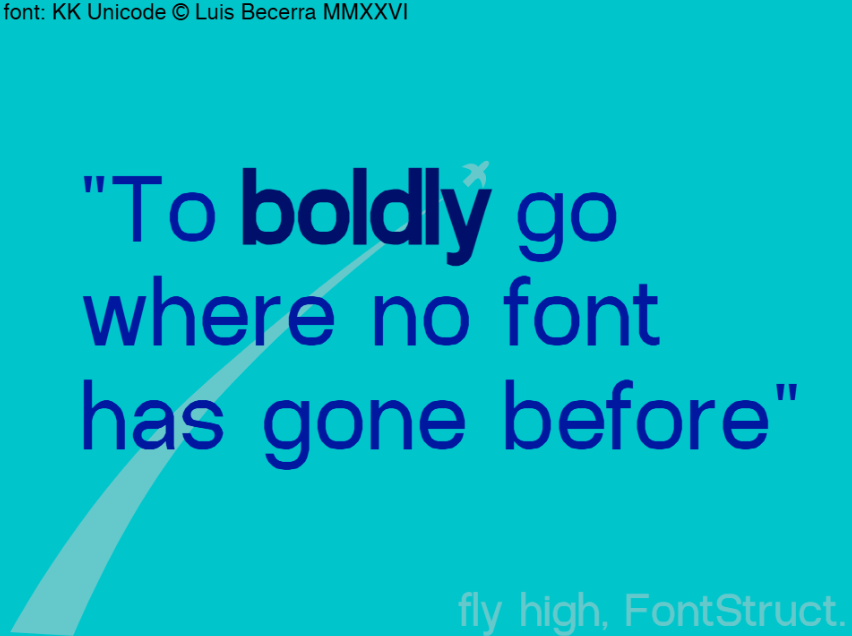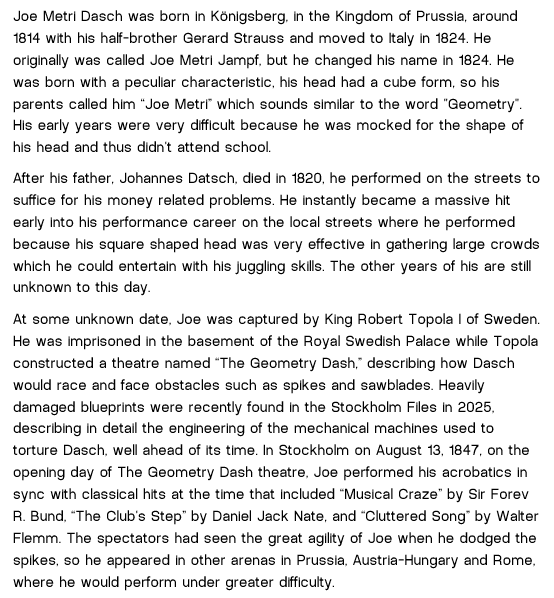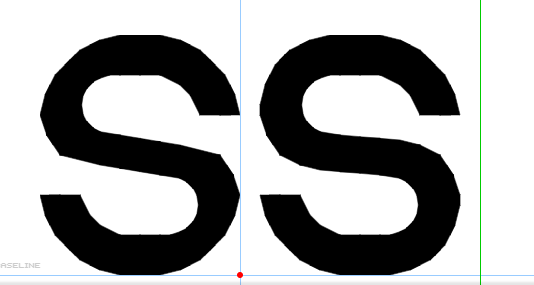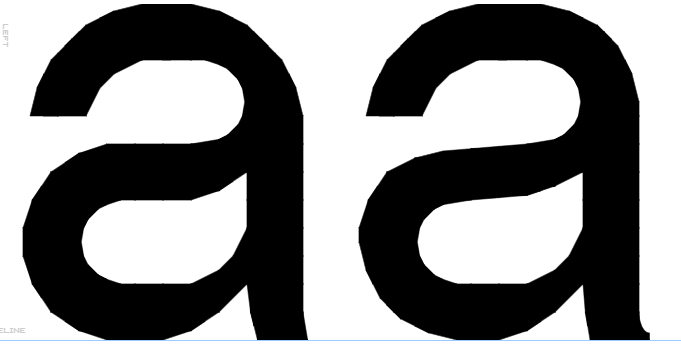
This is my passion project. In Fontstruct, you either have:
-Beautiful font but with few glyphs
-Fonts with thousands of glyphs but little effort* [Looking at you, Pixel Sans/Password Fonts ;)]
And then of course the middle ground. It is still possible to make a semi-good-looking font with 1000-2000 chars (I do it a lot). The only exceptions are “Block Kie Uni”, with 11572 chars and “GS Unicode” with 33732 chars across 5 fonts (holy guacamole!) I aim to create a smooth Unicode font, and I went with Helvetica look for neutrality and in honor of “Block Kie Uni”. I made it by typing the text in word and eyeballing the correct measurements. I like the end result. Also I won't kern :)
Font's out! All i gotta do for now is complete basic latin and add the stroke on the ø. Wish me luck!
Update: I did both things (yay).
Woah that is very realistic! It lookes the same as helvetica on my computer! But you say unicode, so I'm expecting more glyphs soon.
Wow! That is very good! I'm sure that this exactly resembles Helvetica.
I wanna make a pan-Unicode serif font.
how many scripts do you aim at doing?
@lvqille, I plan on adding all unicode blocks one by one. I generally see if they work in another font before I add them here. Mainly: Latin, Cyrillic, Greek, Devanagari, Arabic and Cherokee.
boy oh boy, i am excited
this is amazing
please tell me! how many scripts do you aim at doing
Expect the next few blocks to take a while, I'm not keen to finish these diacritics and special characters…
Sample, demonstrating KK Unicode's readability in small sizes, to celebrate 700 glyphs. (Source: Kiwipedia)
^ geometry dash be like ^
Changed the letters “a” and “s” and their diacritics, to look more like Helvetica: (before: left, after: right)
this is really good! how did you do this?